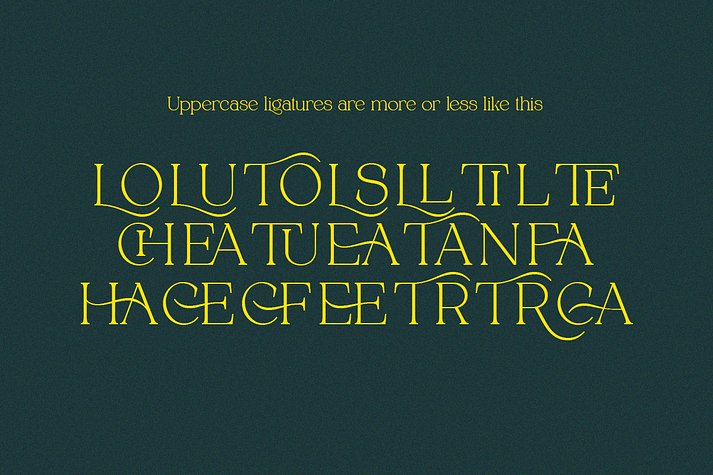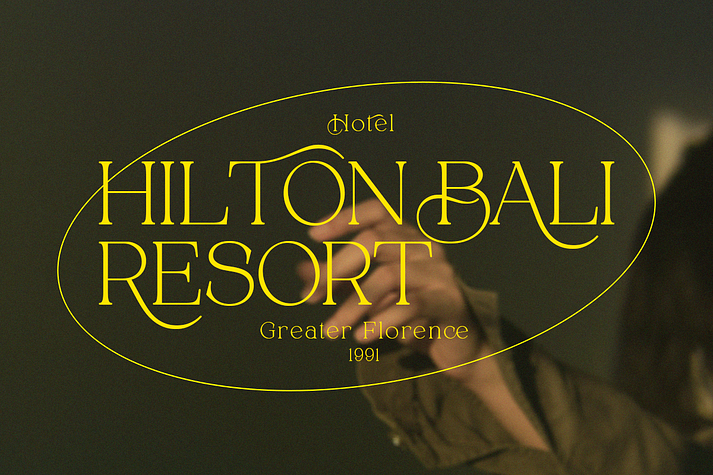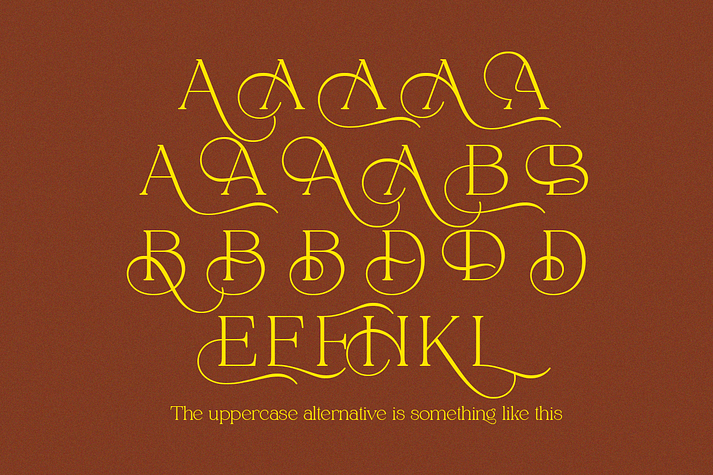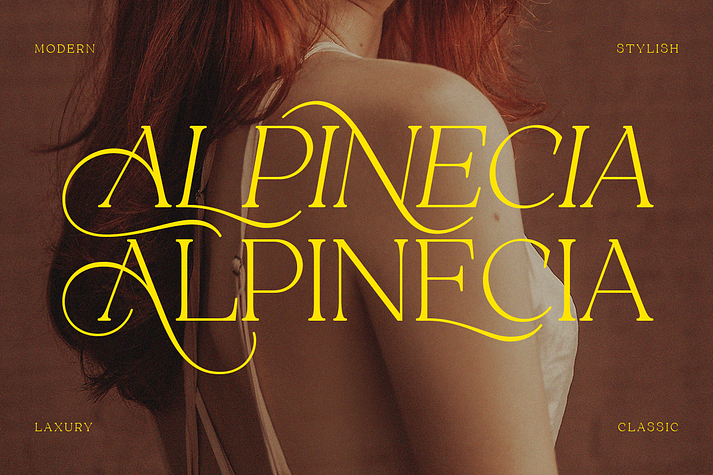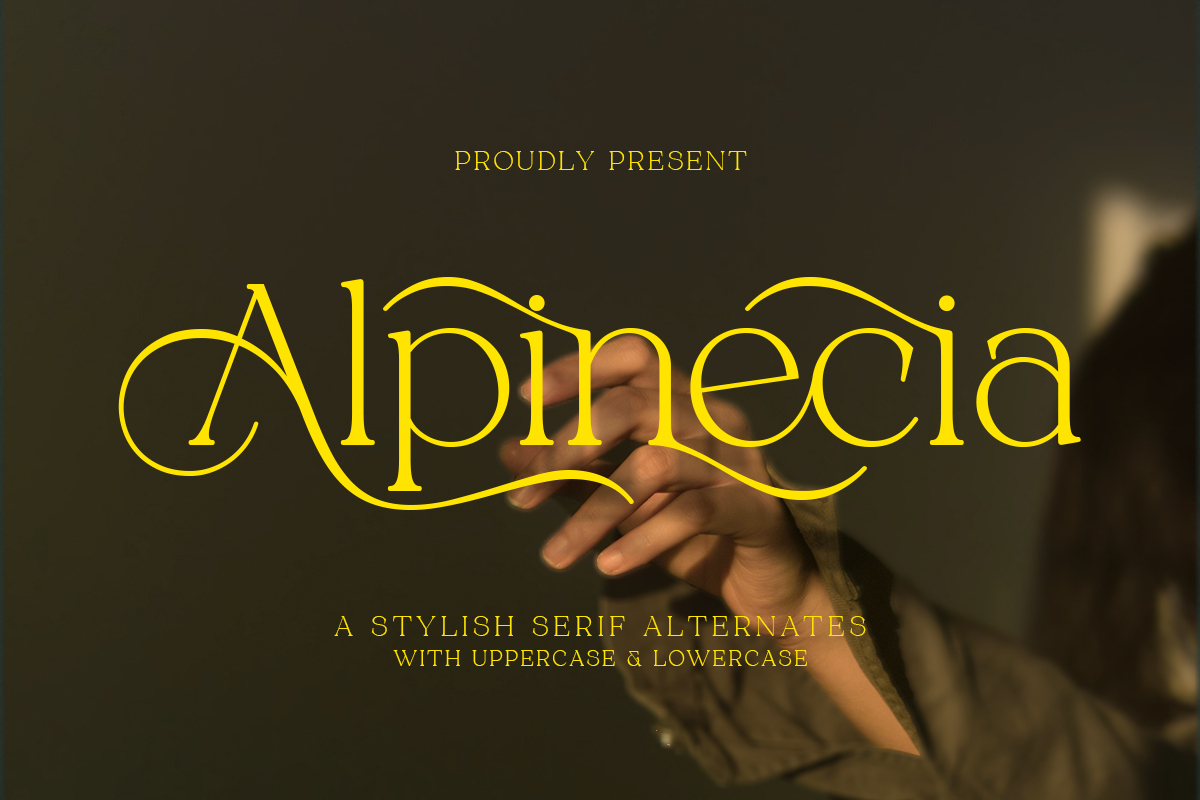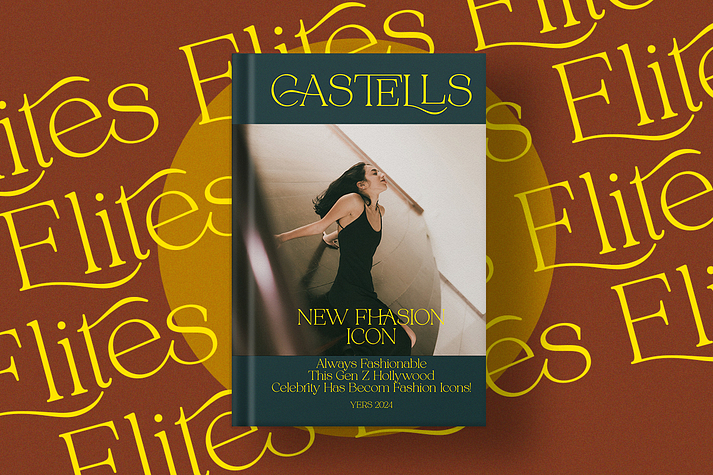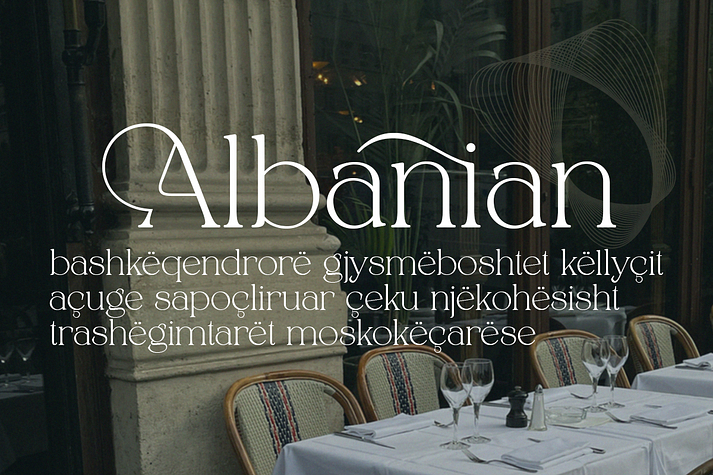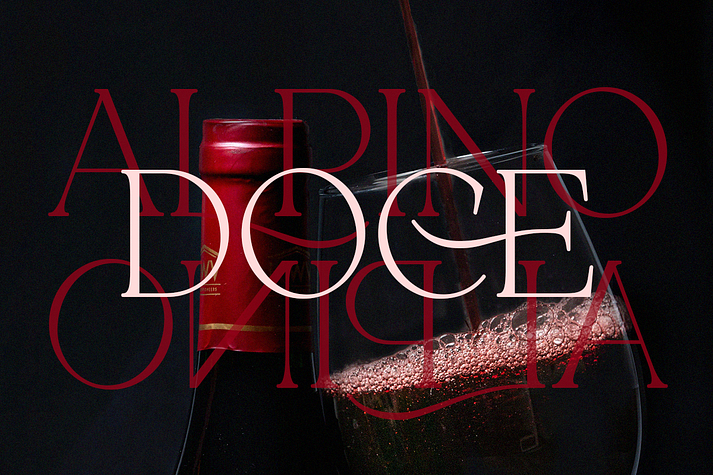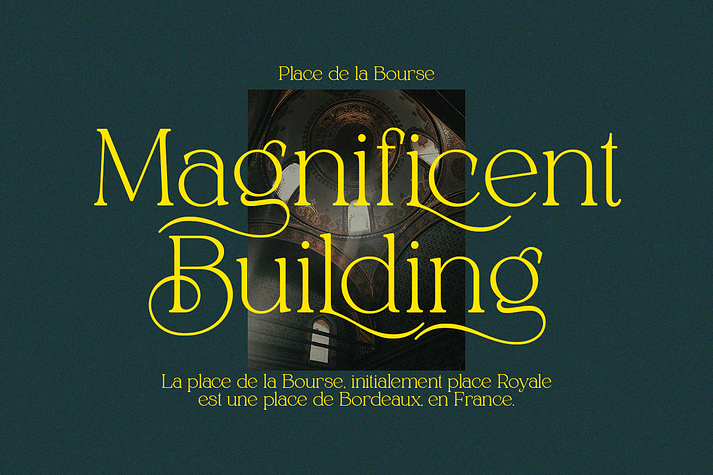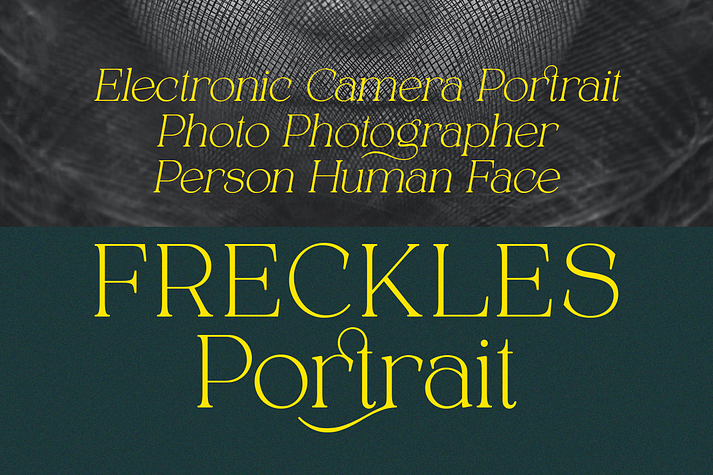
Alpinecia
Alpinecia is a retro font family. This typeface has two styles and was published by Pista Mova.
Trendy, classy & modern stylish serif font for your luxury projects. Alpinecia elegant, fashion and classic font style will be a perfect fit for any branding project. Many alternatives and bindings will help you create a unique and original logo or website header design!
Multilingual support
Uppercase
Lowercase
Number
Punctuation
Many alternative characters
Lots of ligatures
Perfect for modern branding projects!